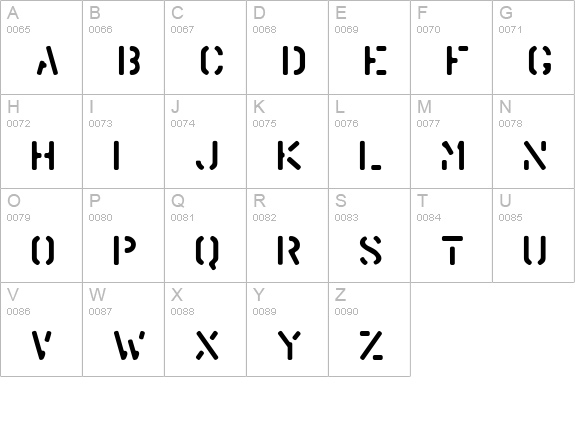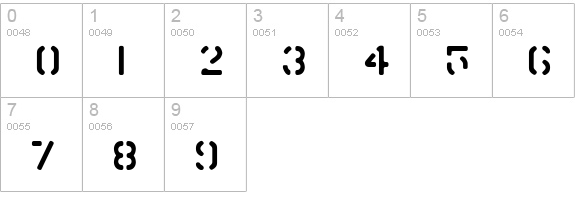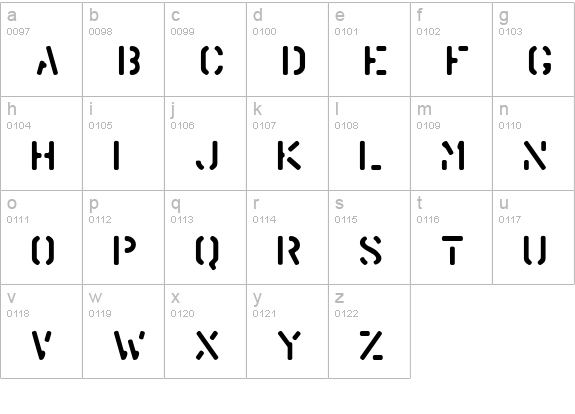
Warehouse Font Details
Warehouse font is a bold and industrial typeface that exudes strength and reliability. Featuring strong lines and a sturdy presence, this font is perfect for conveying a sense of power and resilience in your designs. With its modern yet timeless design, Warehouse font is versatile and can be used for a variety of projects, from logo designs to headlines and more. Best of all, Warehouse font is available for free download at FontsMarket.com, making it accessible to designers of all levels. Whether you're working on a professional project or a personal endeavor, Warehouse font is a valuable addition to your font library. Add a touch of strength and character to your designs with Warehouse font today!